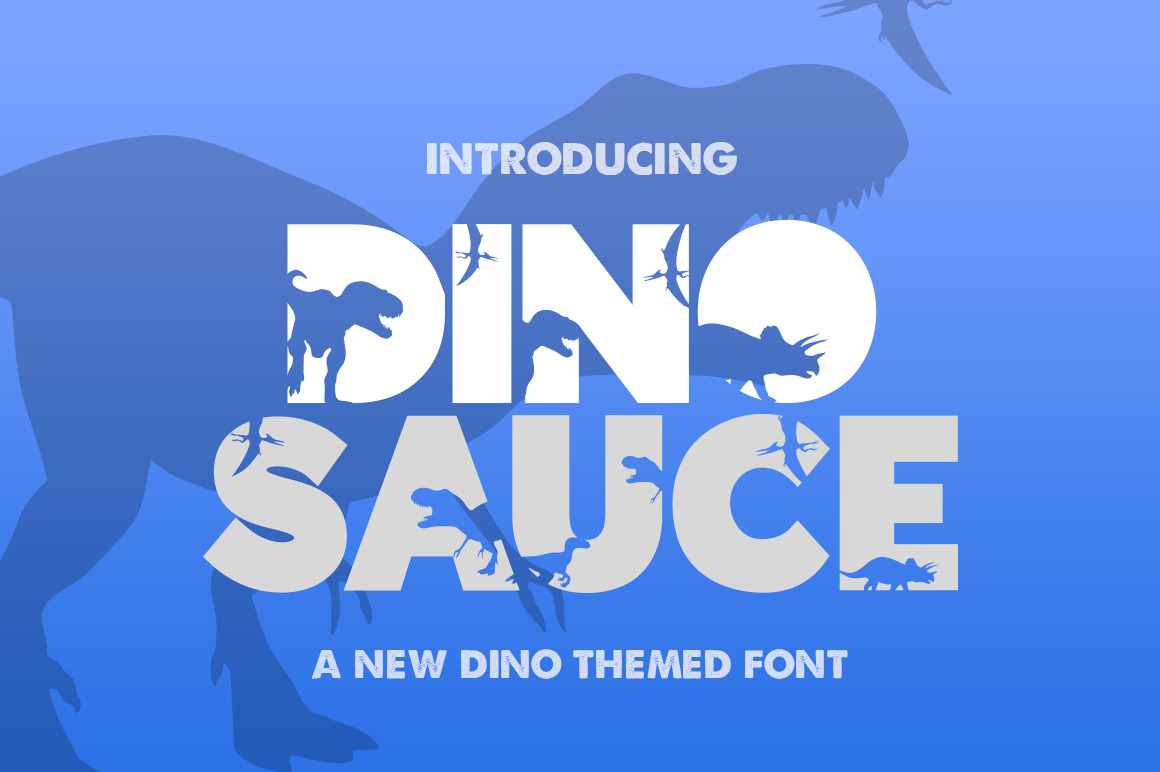
Dinosauce Font
Open the door, get on the floor, everybody walk the dinosaur! Ok, maybe not, but at least use this rawrsome (sorry) new font in your designs! Full of your fave prehistoric creatures and perfect for kids clothes and invites! Enjoy!